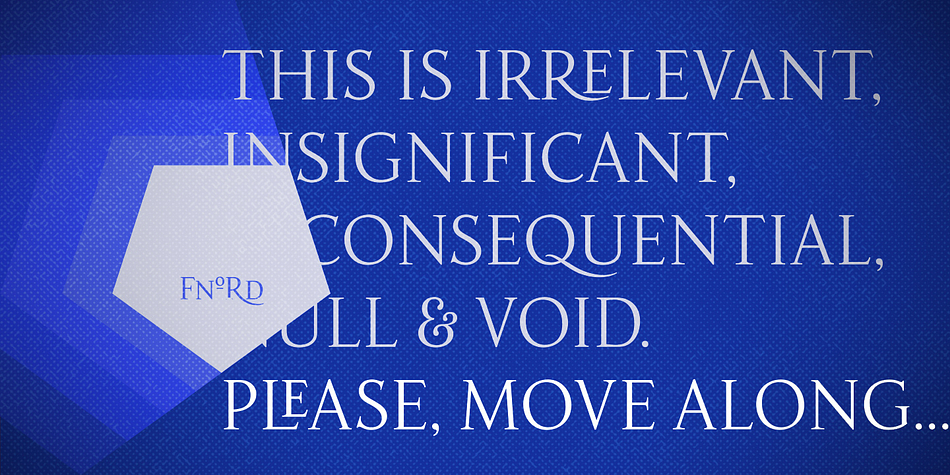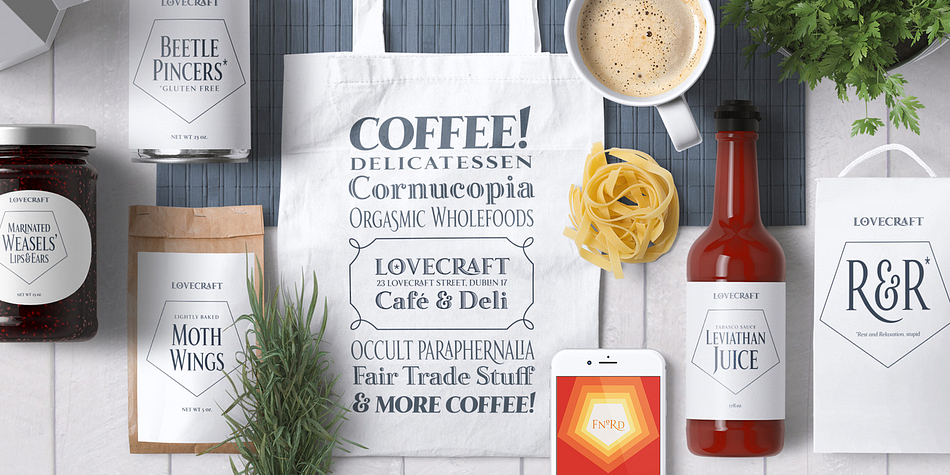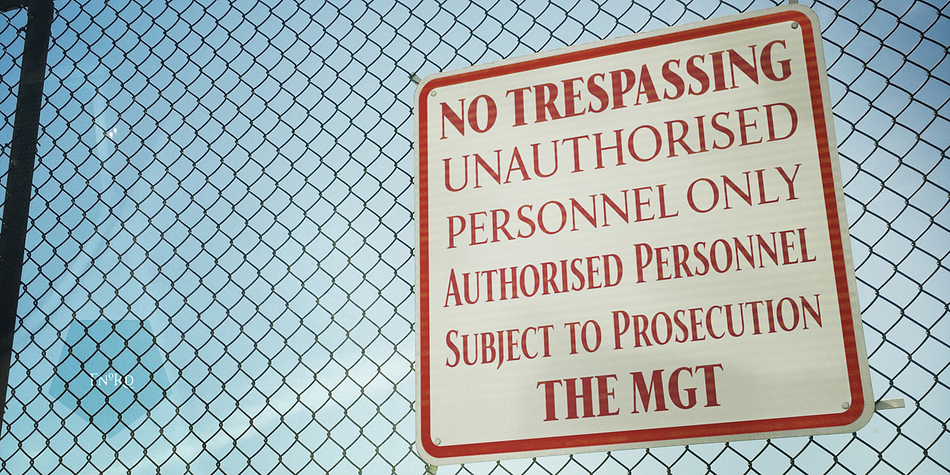
Fnord
Designed by Paulo Goode, Fnord is a serif and display serif font family. This typeface has twenty-three styles and was published by Paulo Goode.
Fnord is a contemporary humanist serif typeface.
It is ideally suited for display purposes, titling, headline copy and branding.
While sketching and designing Fnord, I was re-reading the complex, thought-provoking and mischievous works of authors Robert Anton Wilson and Robert Shea from the 1970s.
Many of the recurring themes from their books had an influence on the way Fnord was created, particularly the numbers 5, 17, 23, 40 and 93 which are key to this font family’s spacing and geometry.
I found it both very interesting and enjoyable to work with a specific theme and purpose for creating this typeface.
Key features:
• 5 Weights in 4 Styles – Roman, Italic, Condensed and Extended
• 3 Additional Display Styles in 1 Weight – Engraved, Inline and Woodcut
• Small Caps, Alternates and Discretionary Ligatures